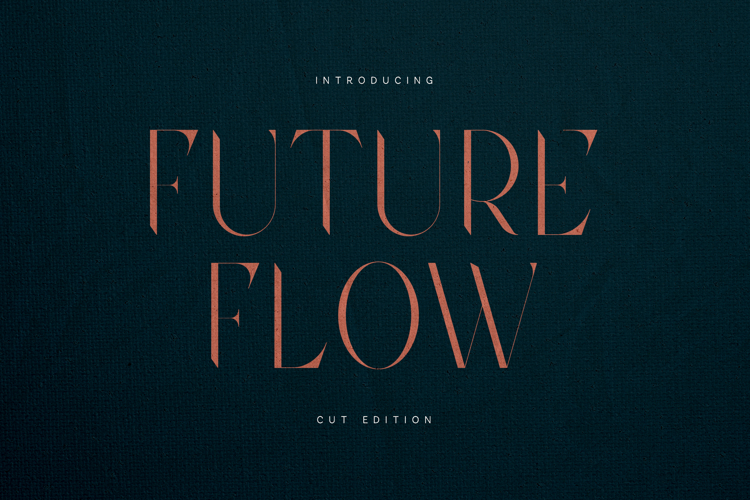
Future Flow Elegant Cut Serif Typeface
Future Flow is a refined modern serif typeface featuring distinctive cut details that give the letters a flowing, sculptural appearance.
The typeface combines elegant high-contrast strokes with subtle diagonal cuts that create a sense of motion and sophistication. These delicate interruptions in the letterforms add a contemporary edge while preserving the timeless elegance of a classic serif structure.
Future Flow was designed for expressive typography where elegance, luxury, and visual identity matter. Its graceful proportions and stylish cuts make it perfect for editorial design, branding, fashion campaigns, luxury packaging, and modern logo design.
The balance between sharp structure and fluid rhythm creates a typeface that feels both futuristic and classic at the same time.
Perfect For• Luxury branding
• Editorial design
• Fashion magazines
• Logo design
• Posters & headlines
• Packaging design
• Beauty & cosmetics brands
• Premium visual identities